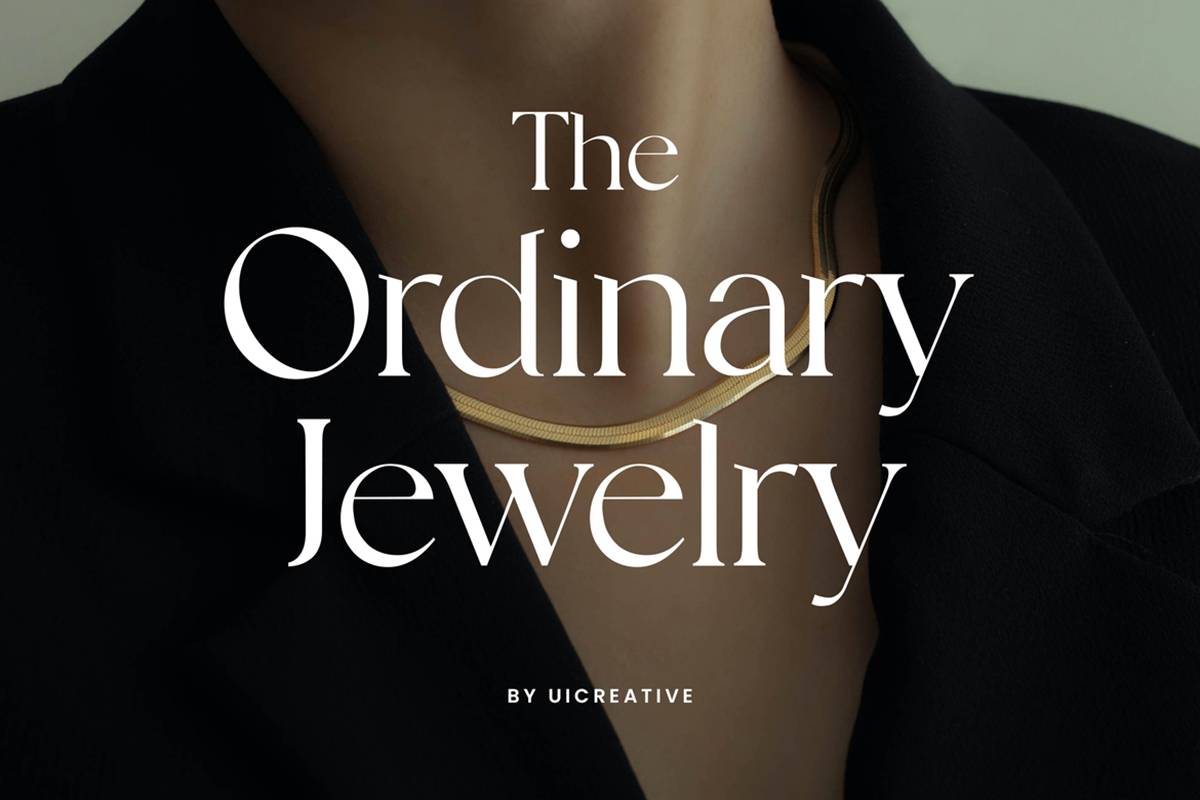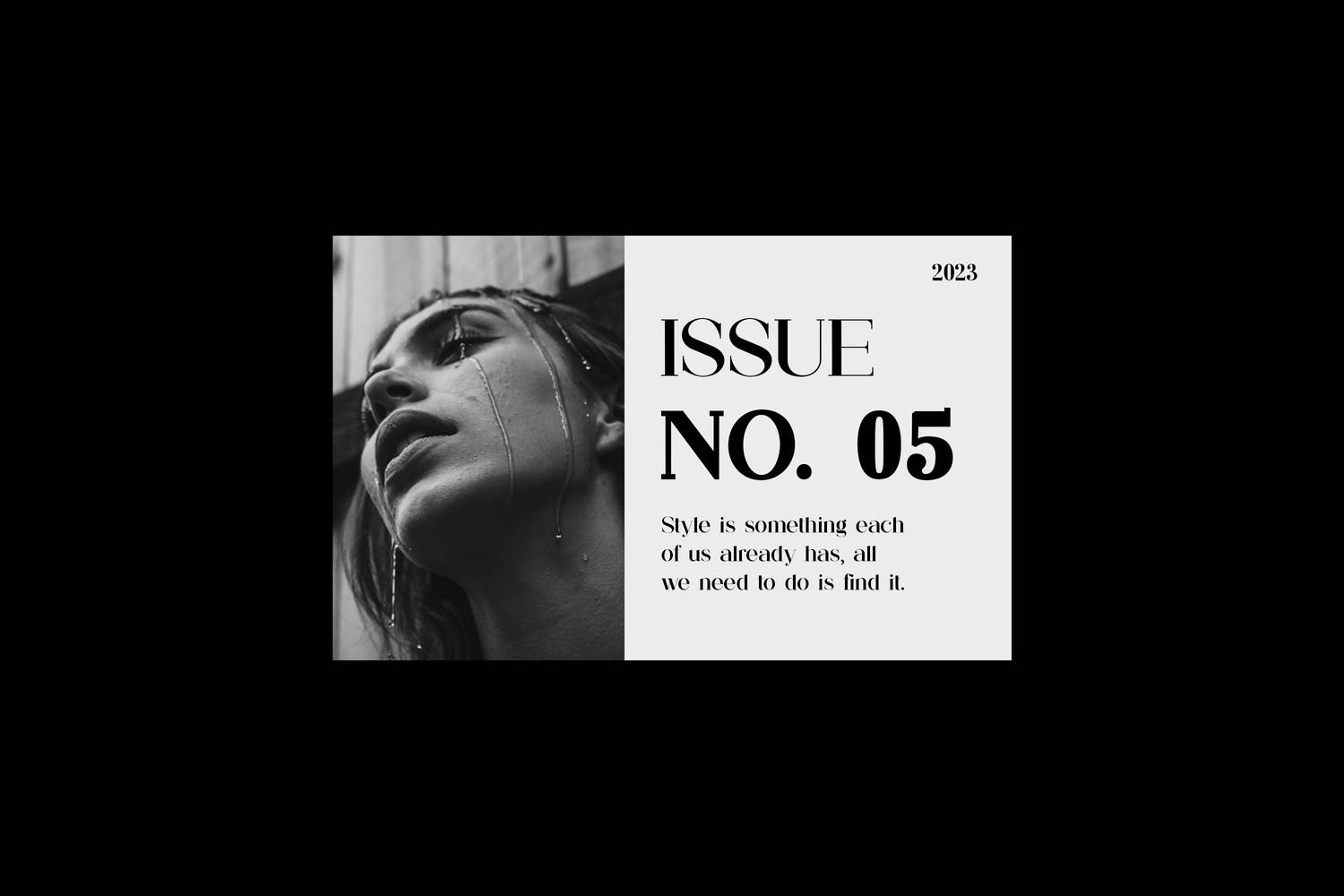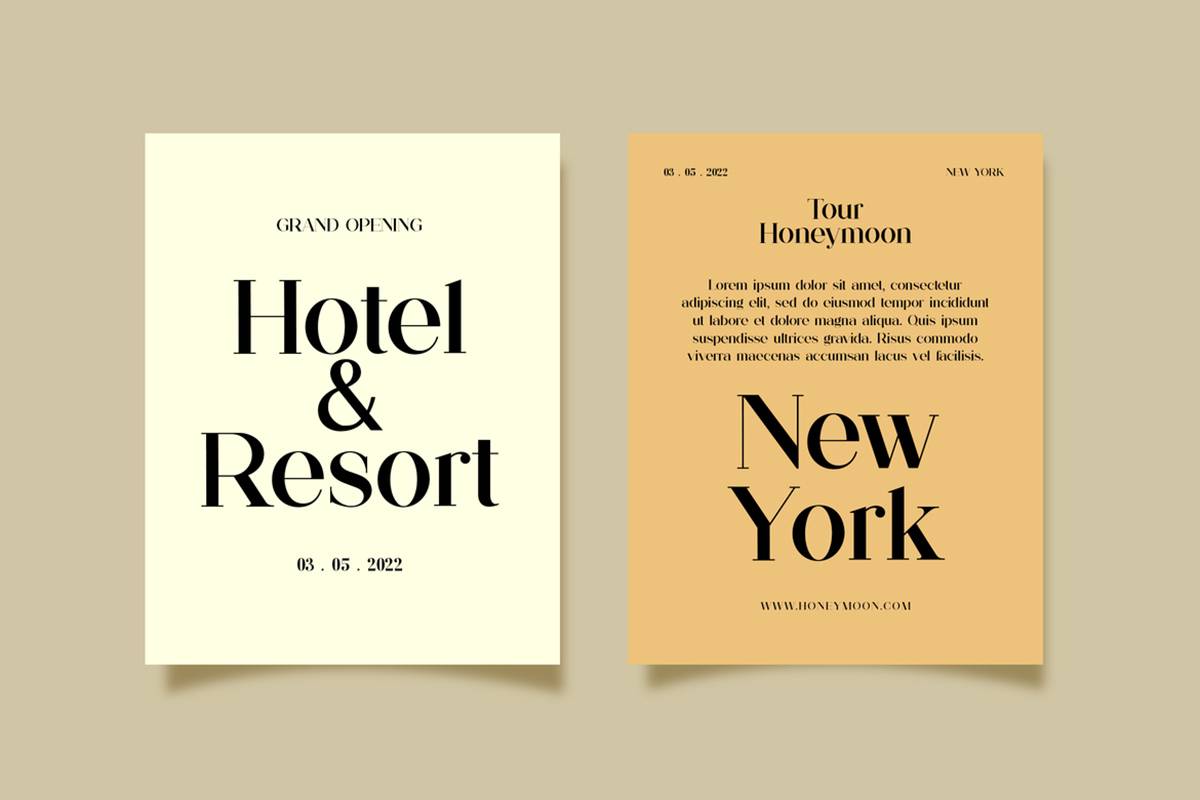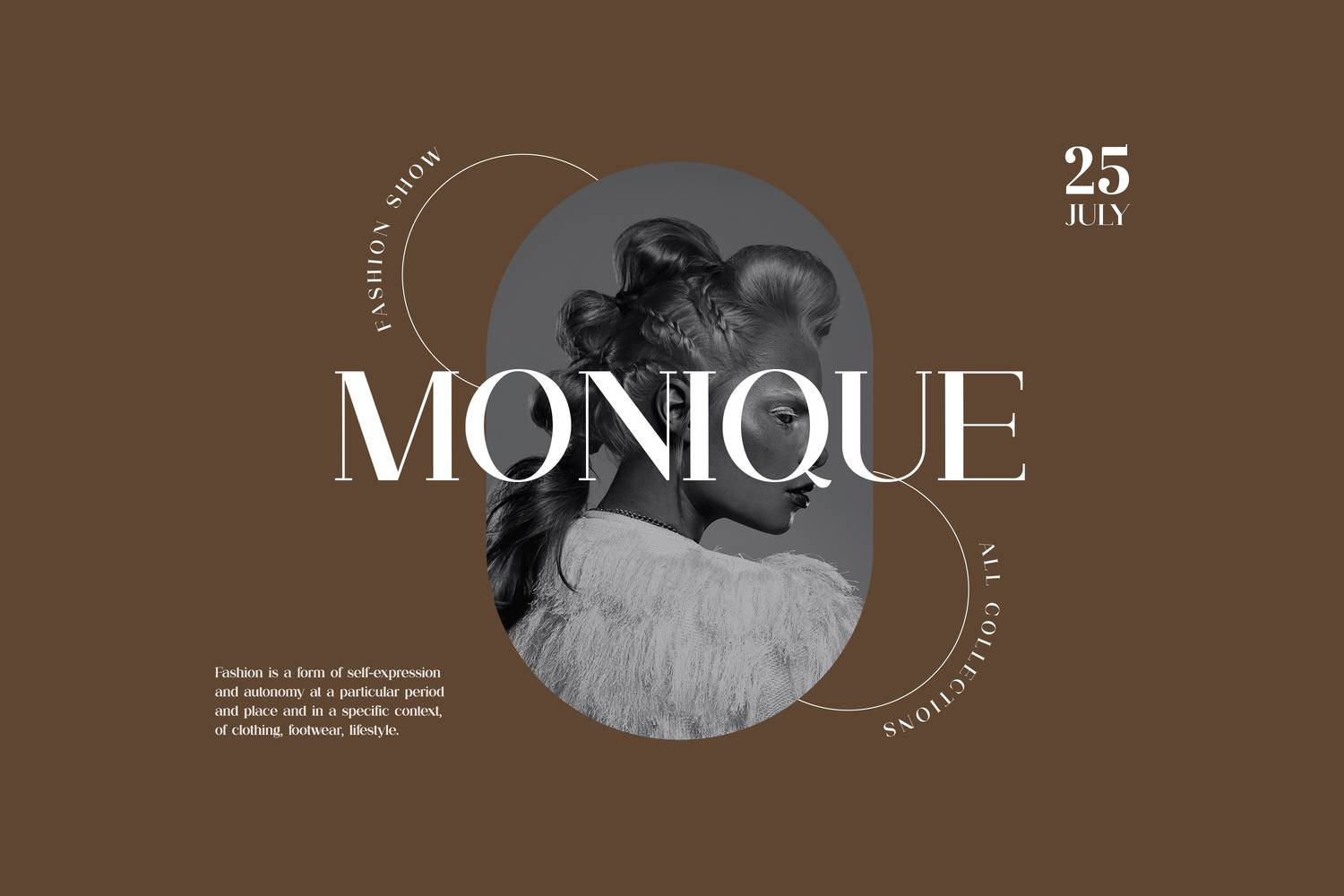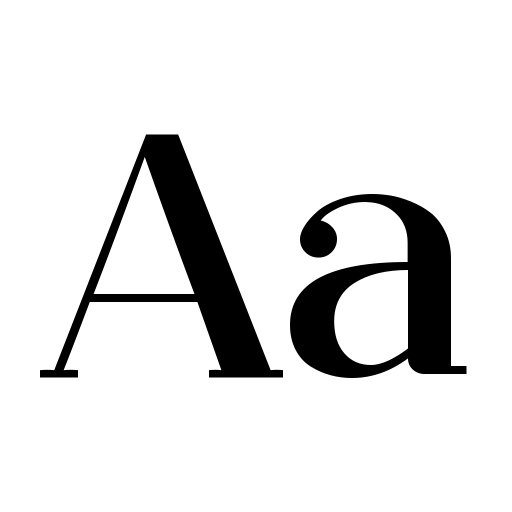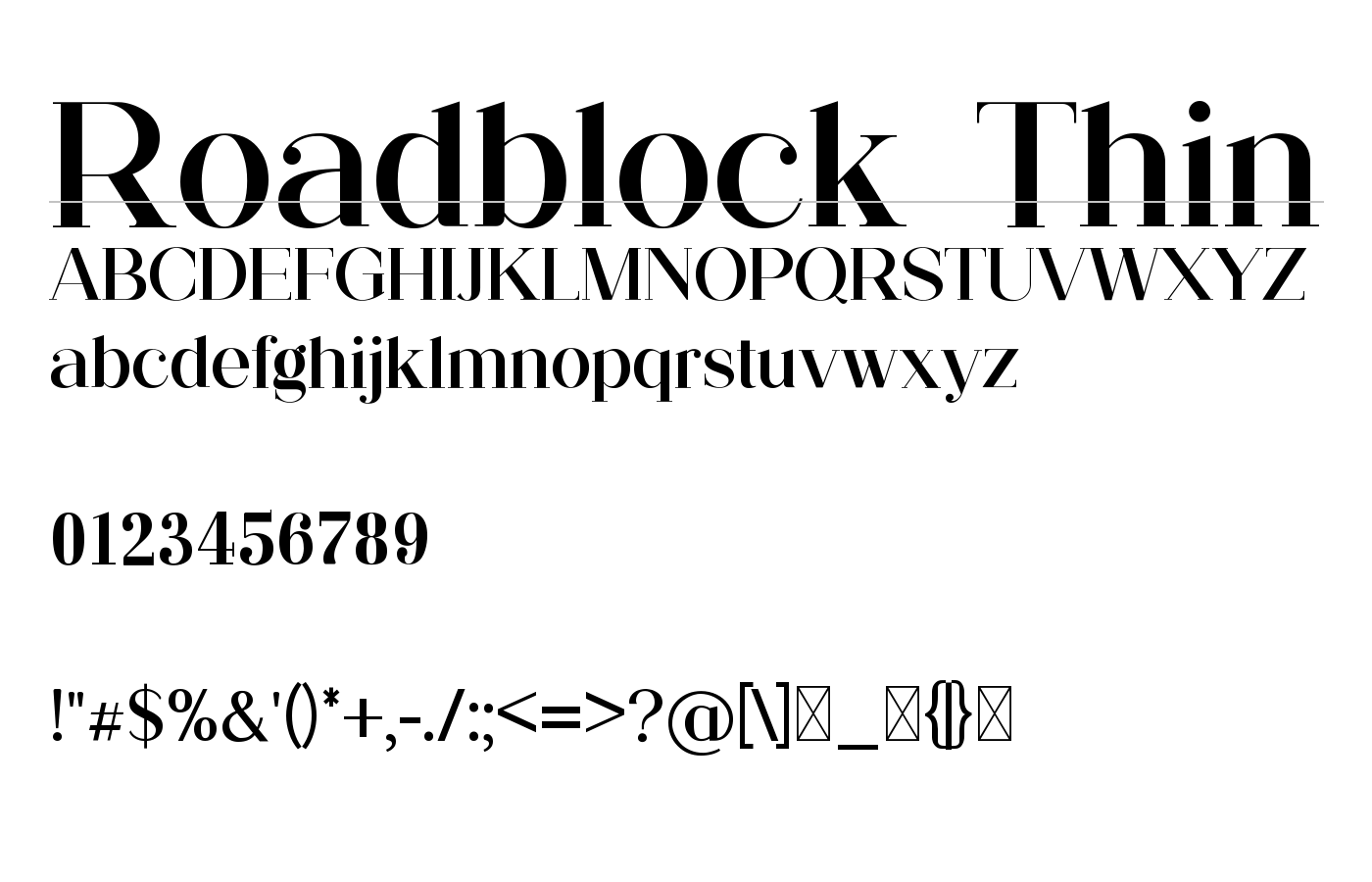
Roadblock Thin is an elegant serif font with a refined modern style characterized by high contrast between thick and thin strokes, thin bracketed serifs, and a tall x-height that enhances readability. Its sophisticated letterforms, including unique details like the curled tail on the lowercase 'g' and distinctive uppercase shapes, make it ideal for luxury branding, editorial headlines, and fashion-related designs where a touch of class and clarity is essential. This font works beautifully for display use due to its light weight and stylish presence, lending a sense of sophistication and modernity to any project.
Roadblock Font
About Roadblock Font